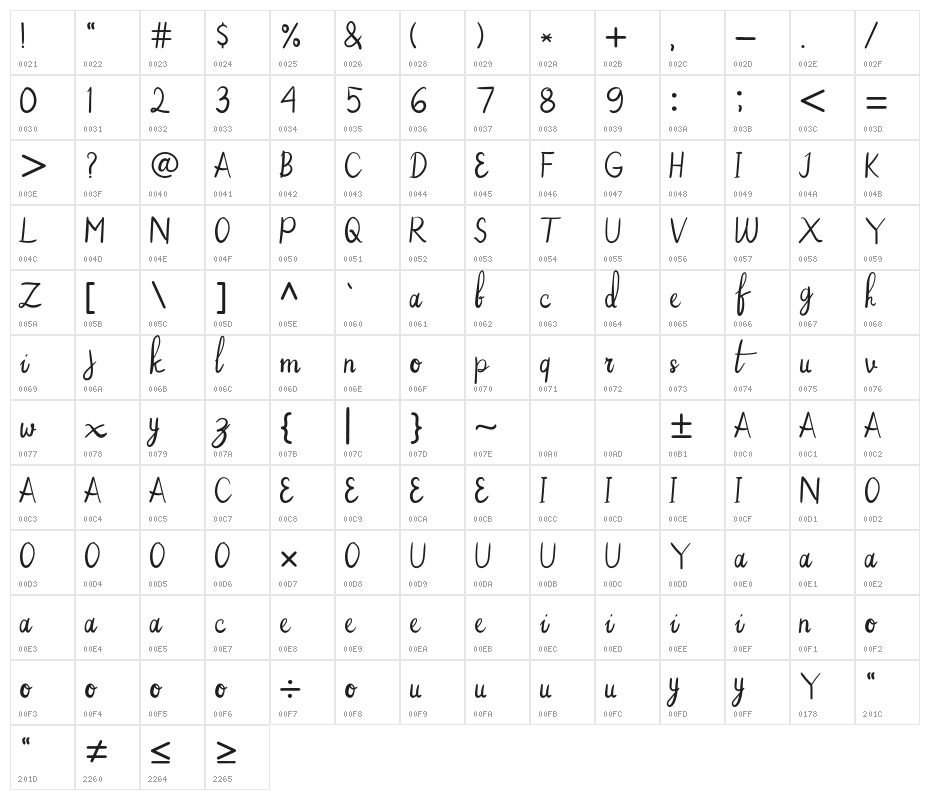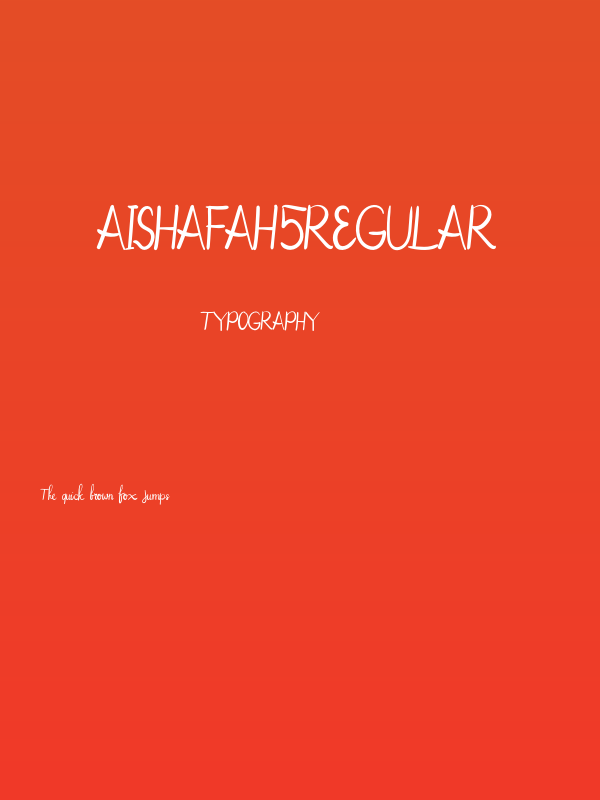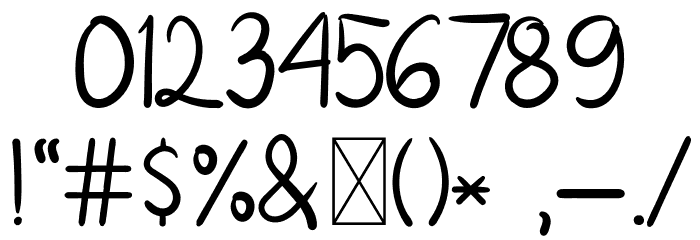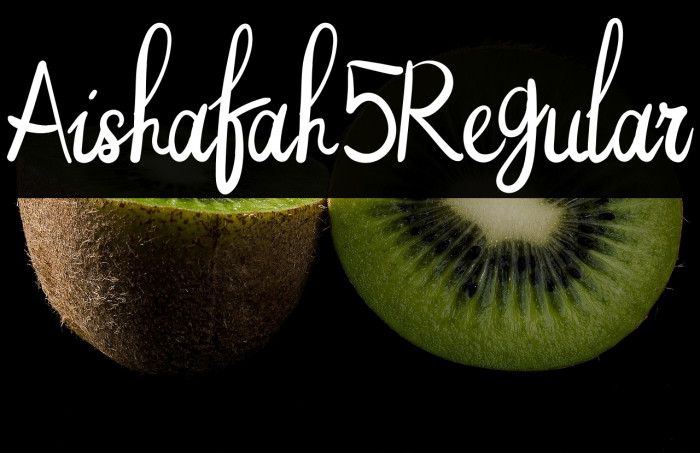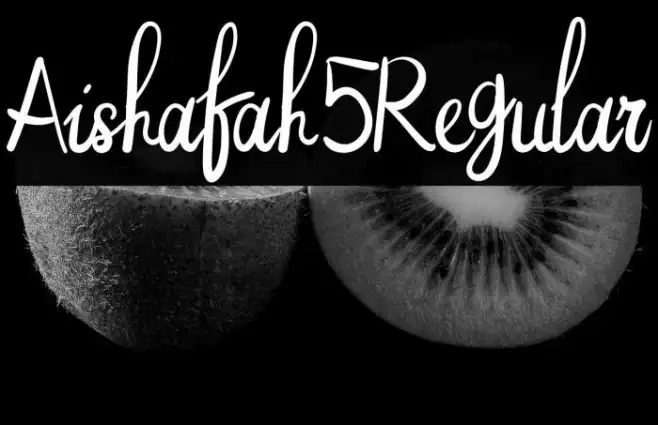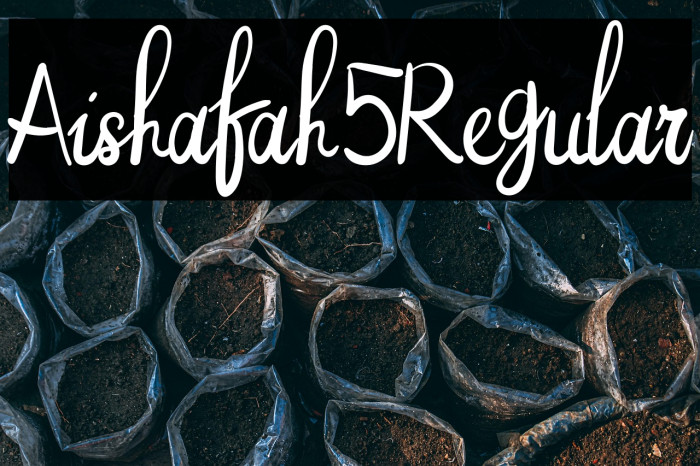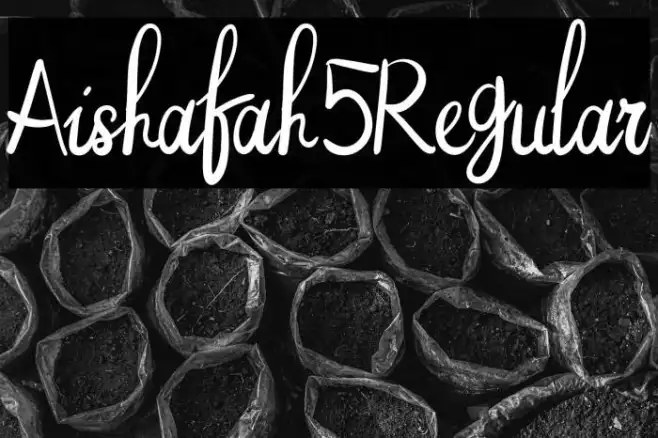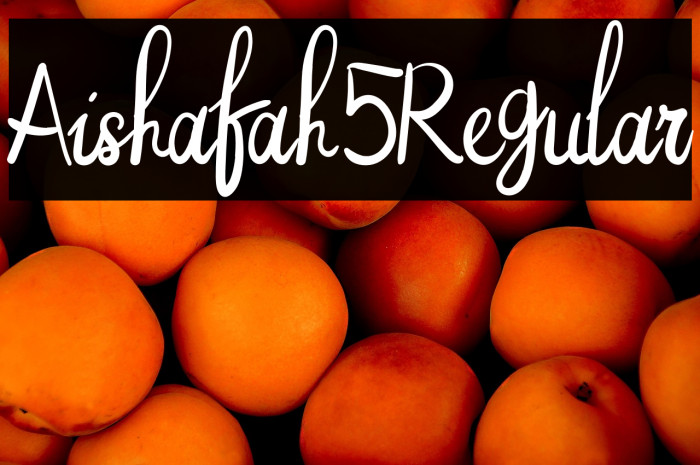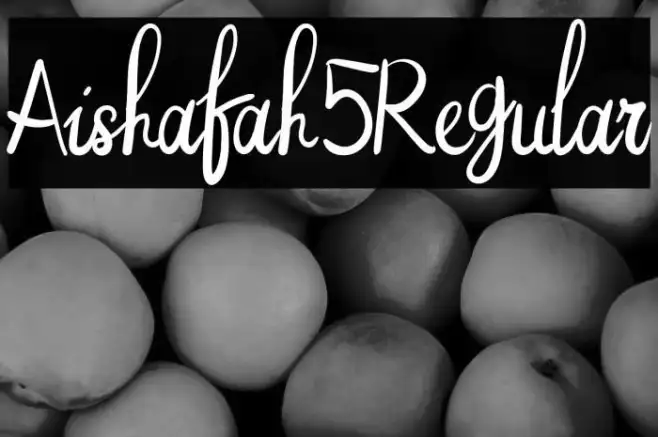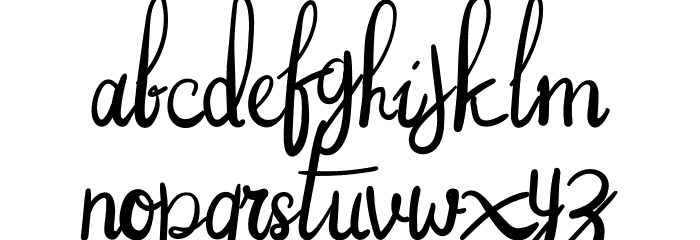
Aishafah5Regular Font
Aishafah5Regular Description
This font features a playful and dynamic handwritten style, characterized by its fluid and slightly irregular strokes. The uppercase letters are bold and assertive, while the lowercase letters maintain a more casual and approachable feel. The numerals are consistent with the overall style, offering a cohesive look. Special characters are creatively integrated, adding to the font's versatility. The overall appearance is both modern and artistic, making it suitable for a variety of creative projects.
| Overall Style | Modern, Artistic |
| Proposed Projects | Ideal for greeting cards, invitations, branding projects, and social media graphics. |